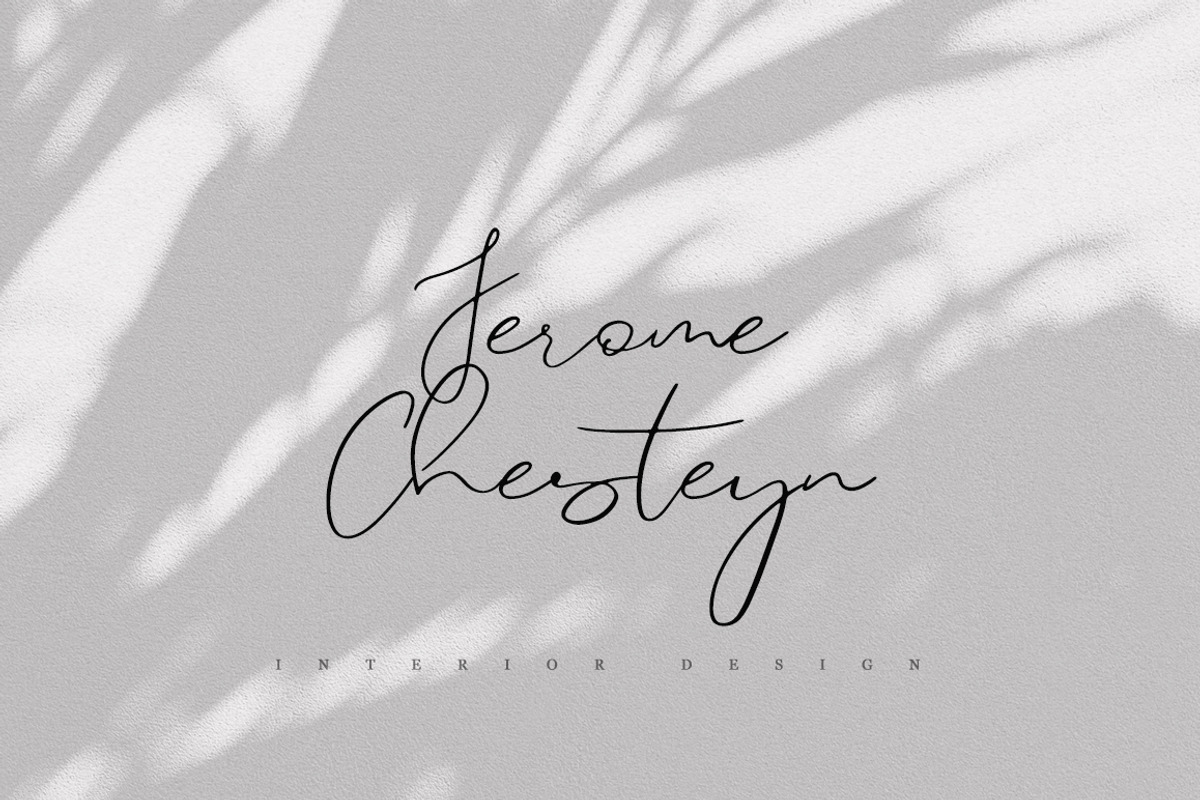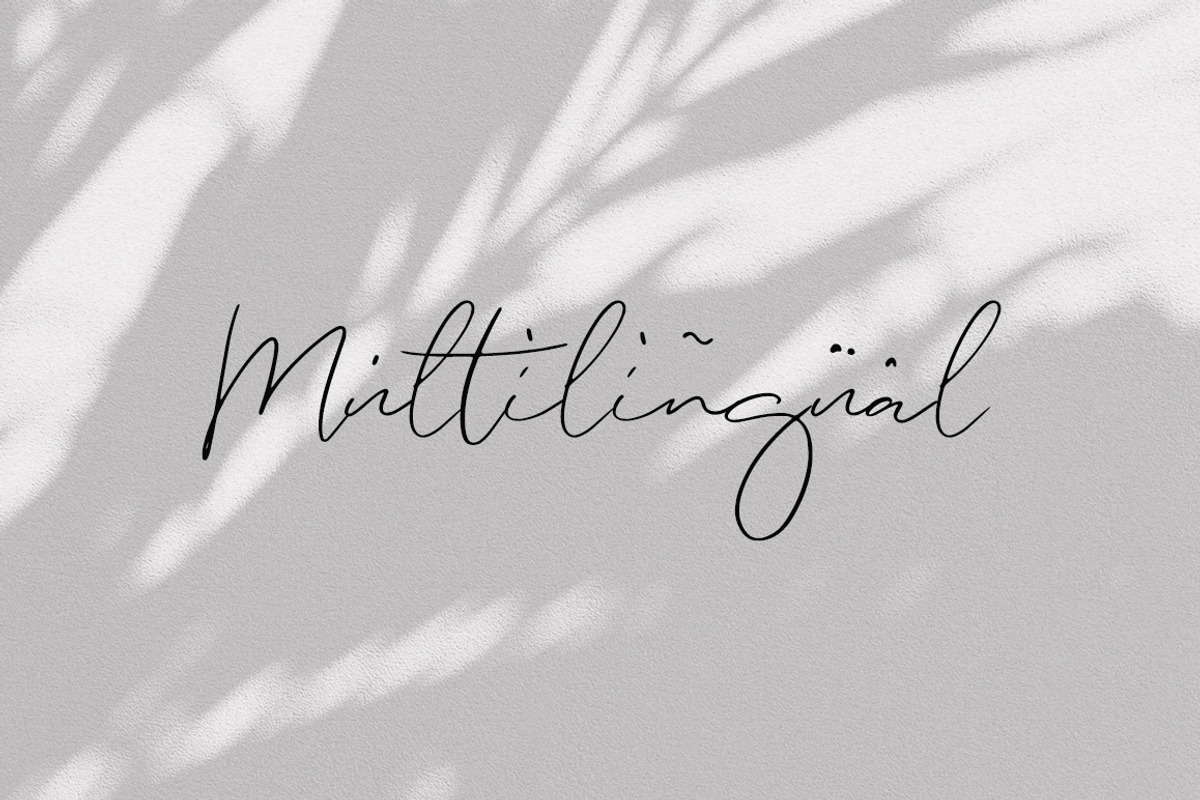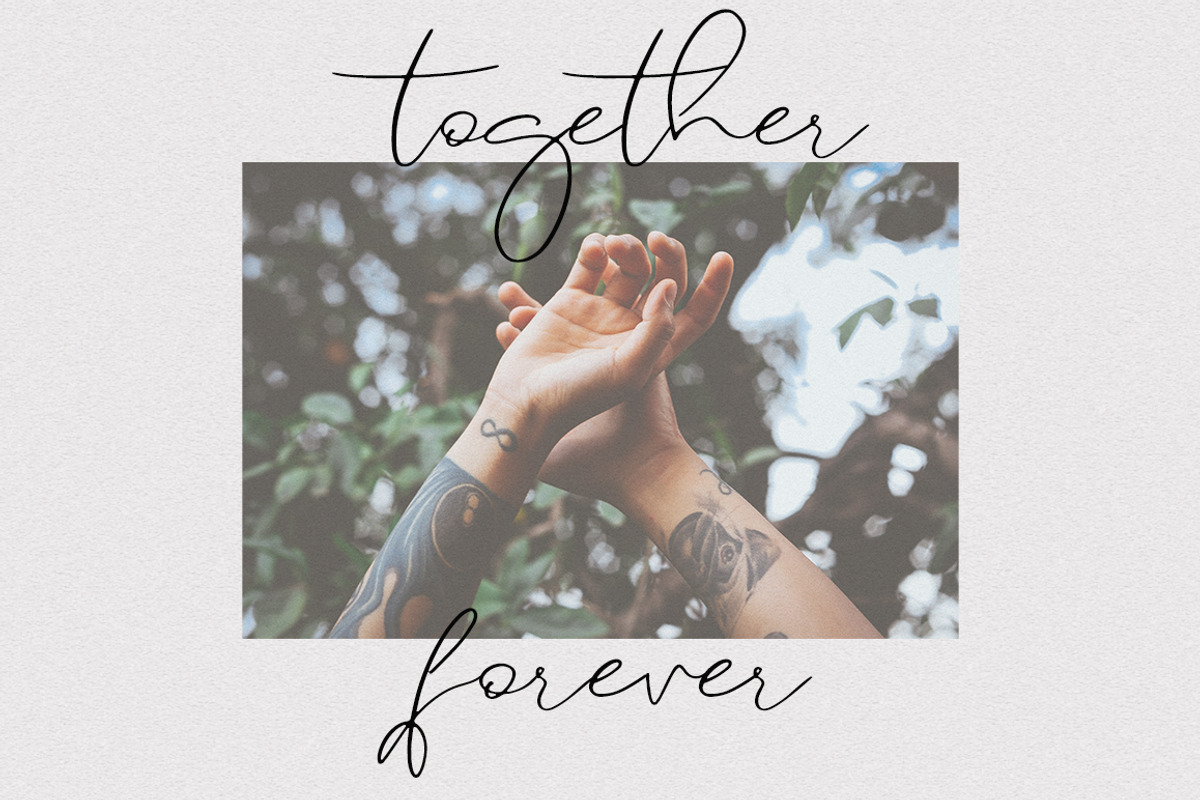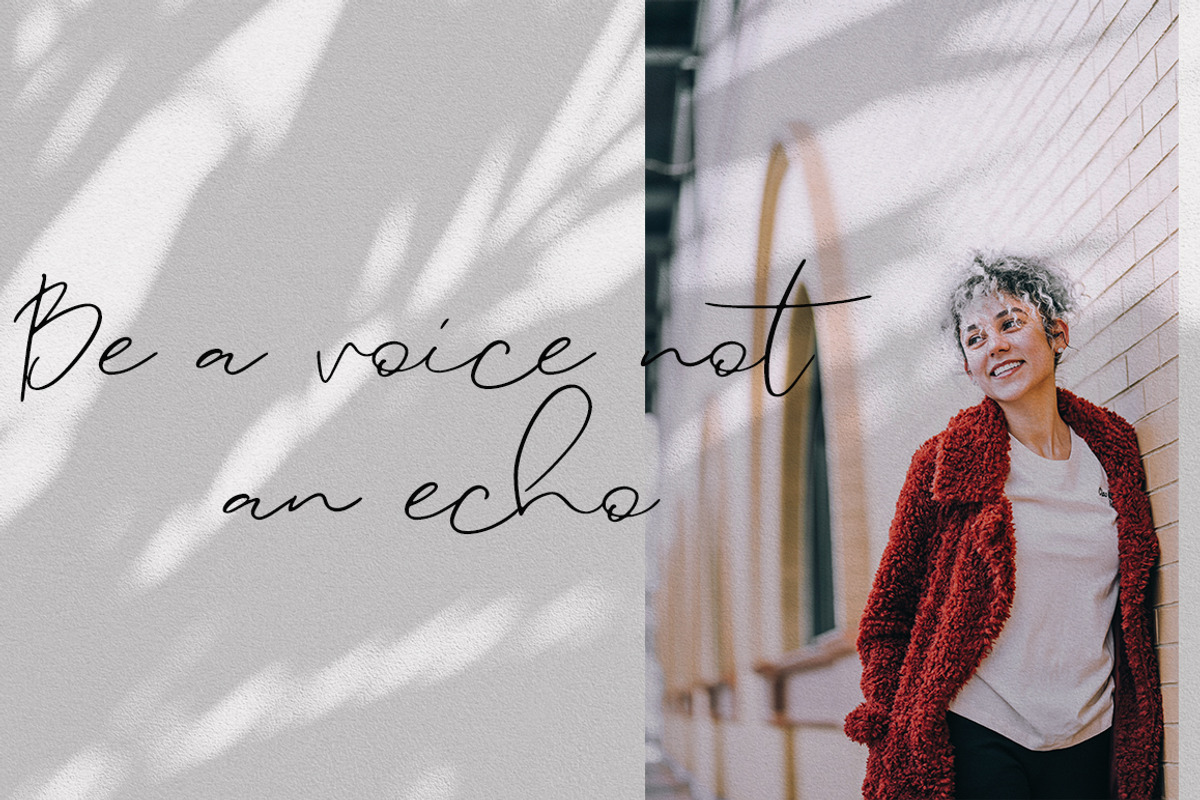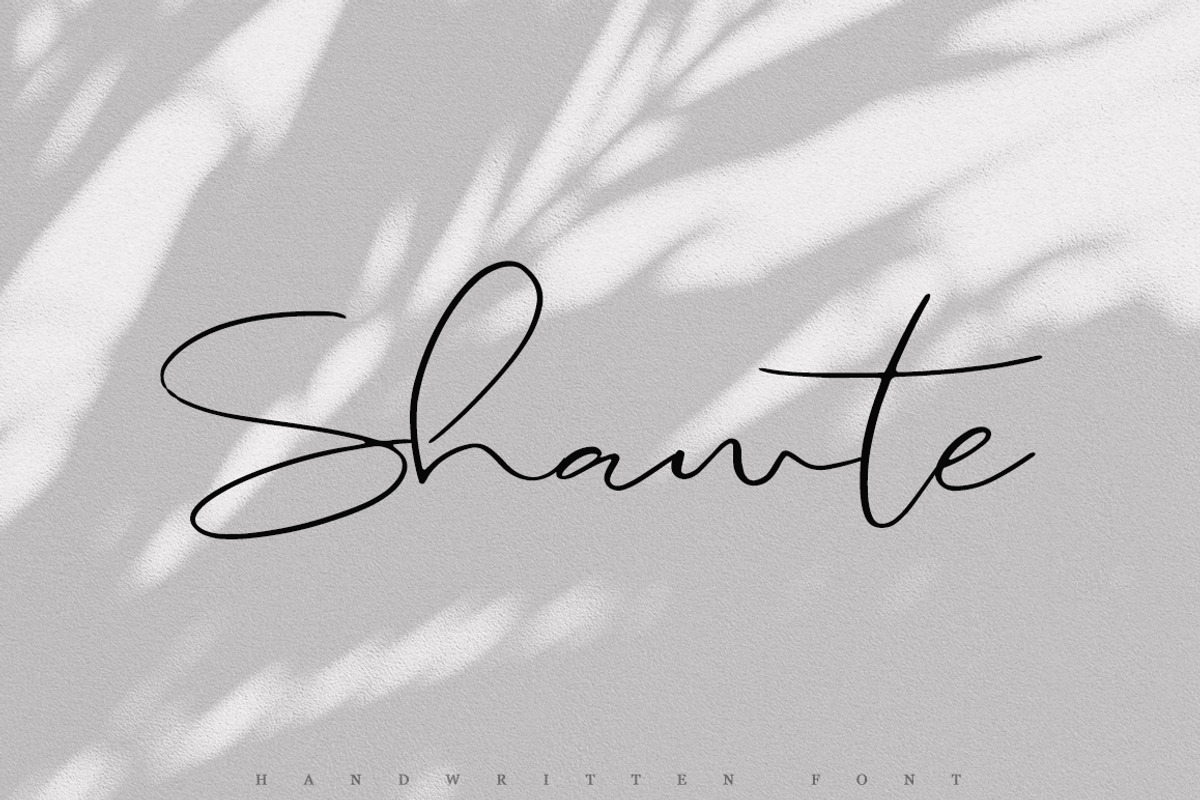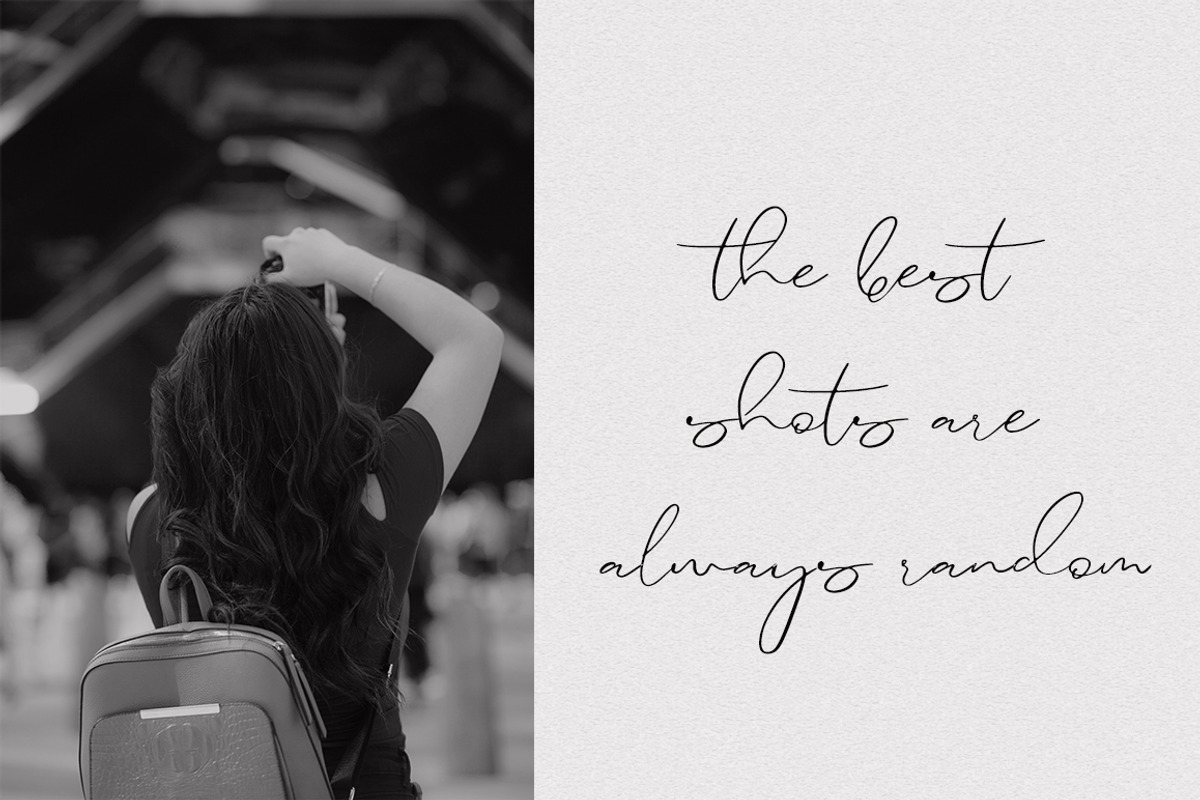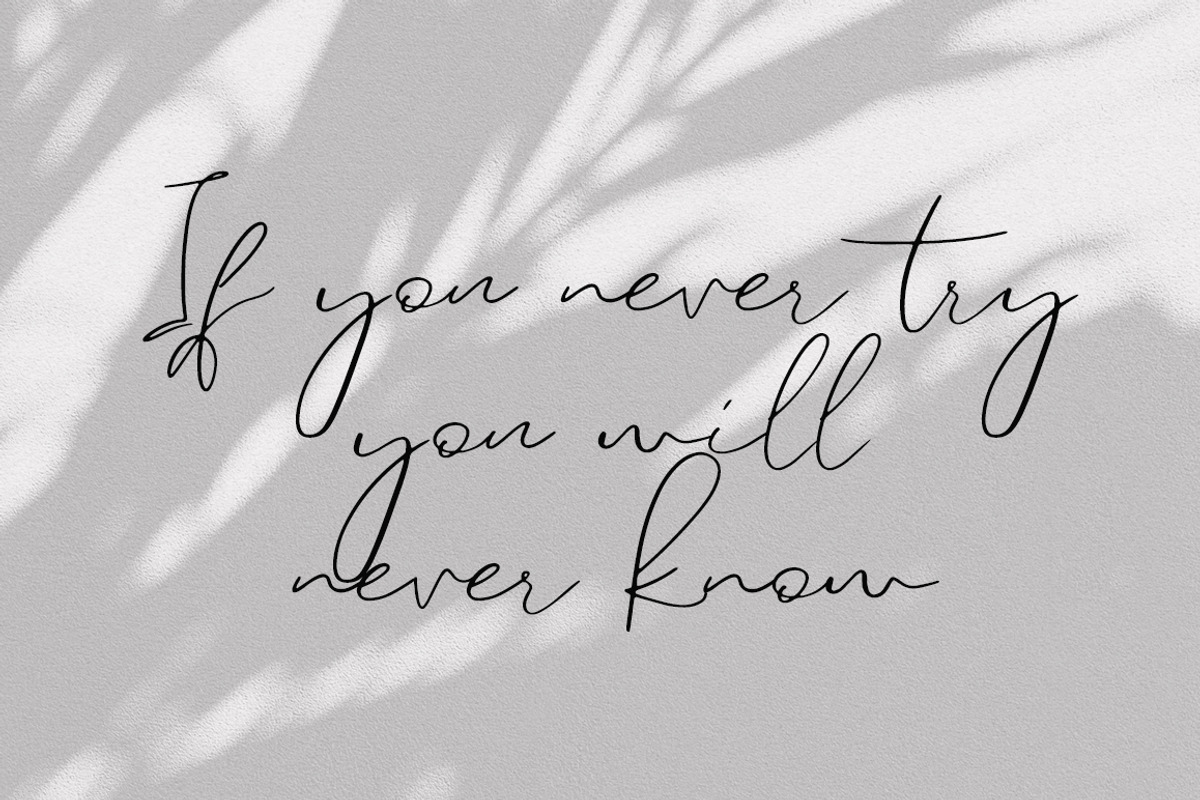
Shawte
Introducing Shawte Handwritten casual font with multilingual.
Shawte is modern font, every single letters have been carefully crafted to make your text looks beautiful. With modern script style this font will perfect for many different project ex: logo, photography, watermark, quotes, blog header, poster, wedding, branding, logo, fashion, apparel, letter, invitation, stationery, etc.